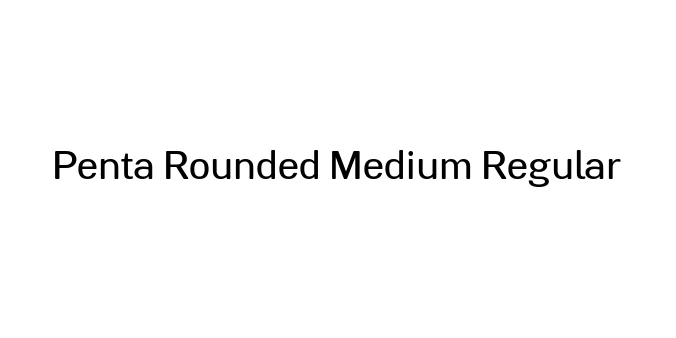
Penta Rounded Medium Regular
Designed by Olexstudio
| Category | Sans-Serif / Rounded |
Penta Rounded Medium Regular is a contemporary geometric sans-serif typeface that prioritizes friendliness and accessibility. Developed as a refined evolution of traditional geometric structures, this font replaces sharp terminals with soft, rounded edges to create a visual language that is both professional and welcoming. The design philosophy focuses on maintaining a strict mathematical balance while softening the overall impact, making it an excellent choice for modern digital interfaces.
Throughout its history, the Penta Rounded family has become a favorite among graphic designers for its versatility across various media. The Medium weight specifically provides enough visual weight to stand out in headings without sacrificing the legibility required for shorter blocks of text. Its clean lines and consistent stroke widths ensure that it remains clear on high-resolution displays as well as in traditional print applications, bridging the gap between technical precision and organic warmth.
Penta Rounded Medium Regular Best Uses
Ideal for clean navigation menus and modern landing page headers.
Perfect for startups and tech companies wanting an approachable brand identity.
Provides high legibility for buttons and user interface elements on small screens.
Works exceptionally well for posters, brochures, and flyers that require a contemporary aesthetic.